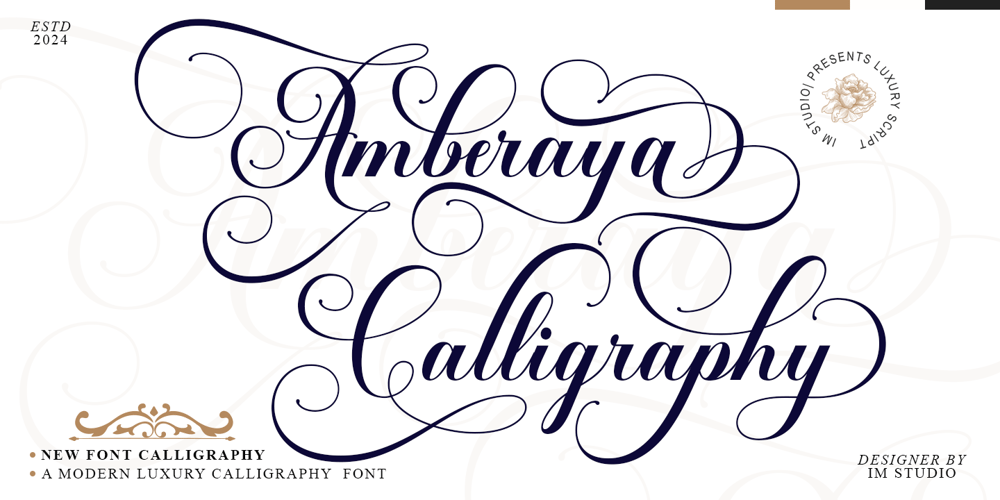
Amberaya Calligraphy Font Family was designed by Ikhsan Maulana and published by IM Studio. Amberaya Calligraphy contains 1 styles and family package options. Introducing Amberaya Calligraphy, a full-featured and elegant calligraphy script font with many alternative characters and OpenType features.With its bold, right-slanted handwriting, Amberaya Calligraphy is perfect for invitations, branding, editorial designs, and more.Amberaya Calligraphy comes with over 480+ glyphs! OpenType specific features include contextual alternatives, style alternatives, initial and final forms, several alternative glyphs for many letters (accessed via the glyph panel), multilingual support (including some currency symbols), ligatures, standard numbers, and more.Perhaps the most fun thing about Amberaya Calligraphy is that it includes several versions of all the ascending and descending letters, making it a lot of fun to play with in your layouts and compositions.OpenType features can be accessed very easily using programs that understand OpenType such as Adobe Illustrator and Adobe InDesign. (To access this amazing feature in Microsoft Word, you’ll need to be familiar with the advanced tab on Word’s font menu.PLEASE ENJOY! I can’t wait to see what you create with Introducing Amberaya Calligraphy!!!